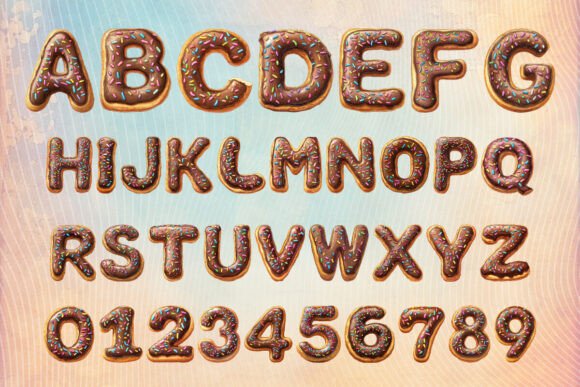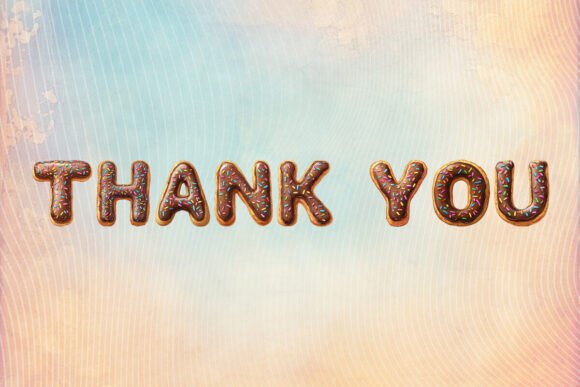
Introducing the Doughnuts Chocolate Font Alphabet: A Sweet Addition to Your Design Collection
Are you looking for a typography that embodies the warmth and festivity of the holiday season? Do you want to add a touch of sweetness to your digital or print projects? Look no further than the “Doughnuts Chocolate Font Alphabet,” a sumptuously sweet and artistic font that’s sure to delight designers, baking bloggers, event planners, and crafters alike.
A Font that’s as Sweet as it is Versatile
The “Doughnuts Chocolate Font Alphabet” is a unique and lovable typography that echoes the richness of a Christmas dessert spread. With its sugar-coated charm and decadent doughnut-inspired design, this font is perfect for anyone hoping to sprinkle a dash of sweet delight into their projects. Whether you’re creating festive holiday cards, baking blog posts, or event invitations, this indulgent alphabet artfully combines the warmth of holiday festivity with the irresistible allure of a lavish cake.
Key Features of the Doughnuts Chocolate Font Alphabet
- Color Font (Opentype-SVG): The “Doughnuts Chocolate Font Alphabet” is a cutting-edge color font that allows for vibrant and detailed designs. This means you can use it to create stunning visual effects that will make your projects stand out.
The “Doughnuts Chocolate Font Alphabet” is a treat for designers and crafters looking to add a touch of festivity and fun to their projects. With its unique and artistic design, this font is sure to inspire creativity and bring a smile to your audience’s faces. Here are just a few ways you can use this font:
- Baking Blog Posts: Add a touch of sweetness to your baking blog posts with this delightful font. Use it to create mouth-watering titles, captions, and headings that will make your readers’ taste buds tingle.
- Holiday Cards and Invitations: Create festive holiday cards and invitations that will stand out from the crowd. The “Doughnuts Chocolate Font Alphabet” is perfect for designing Christmas party invitations, holiday greeting cards, and more.
- Event Planning: Use this font to create event flyers, posters, and social media graphics that will get your audience excited. The “Doughnuts Chocolate Font Alphabet” is perfect for promoting baking events, holiday markets, and other festive gatherings.
- Crafting Projects: Add a touch of sweetness to your crafting projects, such as scrapbooking, card making, and DIY gift tags. This font is perfect for creating custom designs that will make your projects stand out.
- Experiment with Colors: One of the benefits of using a color font like the “Doughnuts Chocolate Font Alphabet” is the ability to experiment with different colors. Try pairing the font with different background colors or textures to create unique visual effects.
- Mix and Match: Don’t be afraid to mix and match the “Doughnuts Chocolate Font Alphabet” with other fonts and design elements. This font is perfect for creating bold and eye-catching designs, but it can also be used in combination with other typography to create a more subtle look.
- Have Fun: Most importantly, have fun with the “Doughnuts Chocolate Font Alphabet”! This font is designed to bring a touch of sweetness and festivity to your projects, so don’t be afraid to get creative and try new things.
In conclusion, the “Doughnuts Chocolate Font Alphabet” is a unique and delightful typography that’s perfect for designers, baking bloggers, event planners, and crafters looking to add a touch of sweetness to their projects. With its sugar-coated charm and decadent doughnut-inspired design, this font is sure to inspire creativity and bring a smile to your audience’s faces. So why wait? Download the “Doughnuts Chocolate Font Alphabet” today and start creating your own sweet and festive designs!